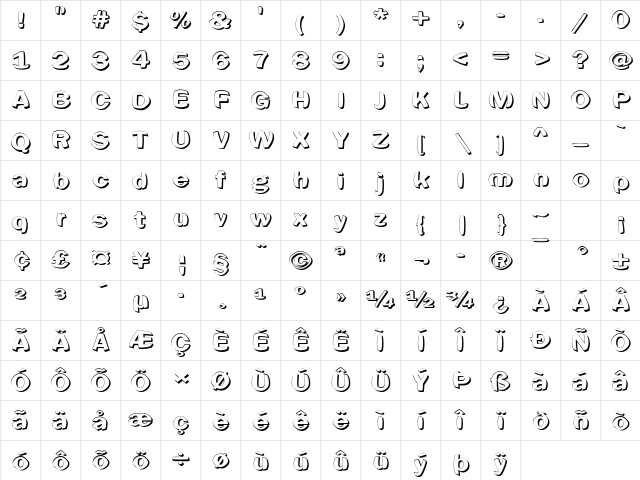
Sphericals-Shadow Regular
Designer: George Herbert Hirst
Design Context for Sphericals-Shadow
Sphericals-Shadow is built around its visual character rather than neutral utility - its distinctive forms are designed to make an impression at display sizes.
Font Pairing: Pair with a clean neutral sans-serif for body copy to let Sphericals-Shadow's character lead without overwhelming the composition.
Pro Tip: Use Sphericals-Shadow exclusively at display sizes - it was designed to be seen, not read at length. Let a neutral companion handle body copy.